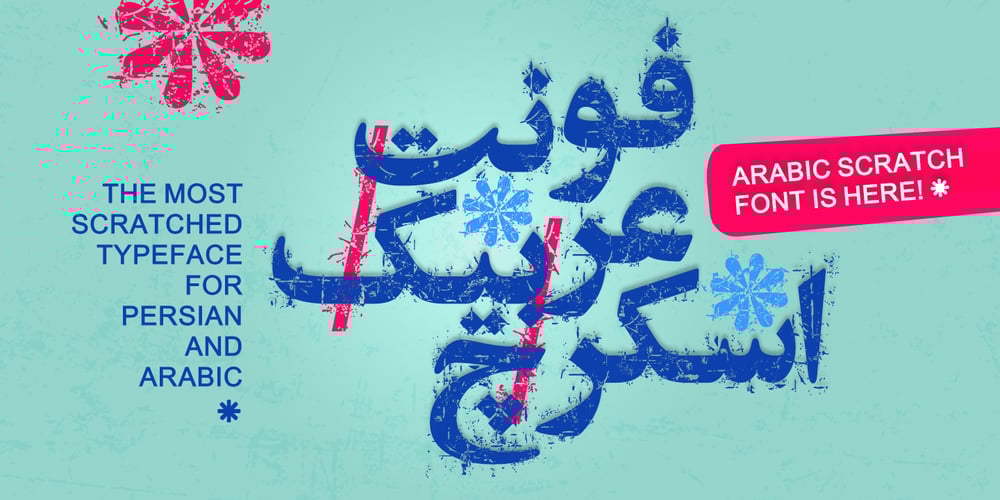
Arabic Scratch Font Family was designed by Shahab Siavash and published by Si47ash Fonts. Arabic Scratch contains 1 styles and family package options. And now Arabic Scratch font is here! Based on the old Naskh based typeface, this font along with the other Si47ash dirty font Persian Grunge, is introducing new possibilities to use Arabic letters for some of your exciting graphic projects, including book covers, posters, banners, brochures, catalogs, logotypes, and more! Every glyph is unique and all the patterns and textures are distinctively designed and make the font an artwork itself! It’s so convenient, you do even have to do anything! Just type the words and the magic happens spontaneously!Shahab Siavash, the designer has done more than 30 fonts and got featured on Behance, Microsoft, McGill University research website, Hackernoon, Fontself, FontsInUse,… Astaneh text and headline font which is one of his latest designs, already got professional typographers, lay-out and book designers’ attention as well as some of the most recognizable publications in Arabic/Persian communities.